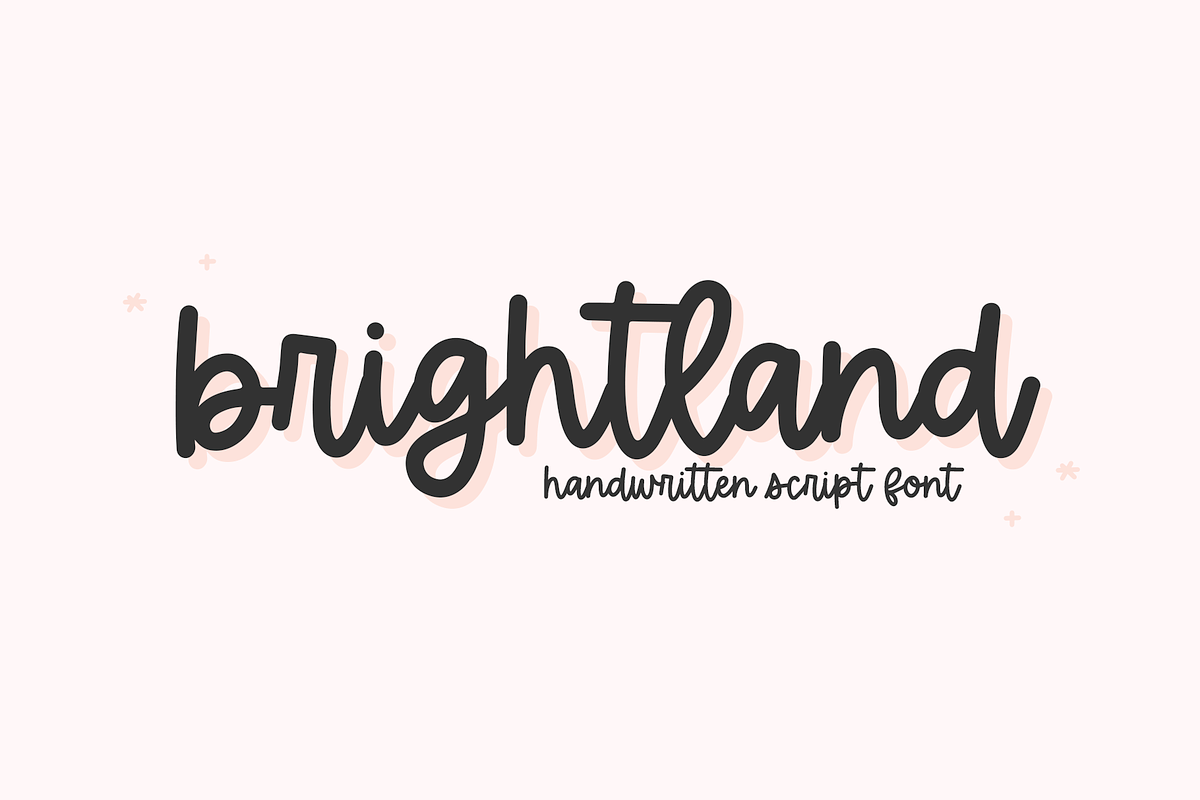
Brightland | Handwritten Script Font Free Download
Brightland | Handwritten Script Font Free Download offers a beautiful blend of elegance and personality, making it an excellent choice for creatives who want to add a personal, handcrafted feel to their work. With its flowing curves and organic strokes, Brightland is perfect for wedding invitations, logos, social media graphics, and lifestyle branding.
This font captures the charm of authentic handwriting, adding warmth and emotion to every project. Whether you're designing quotes, greeting cards, or signature-style logos, Brightland stands out with its stylish yet approachable vibe.